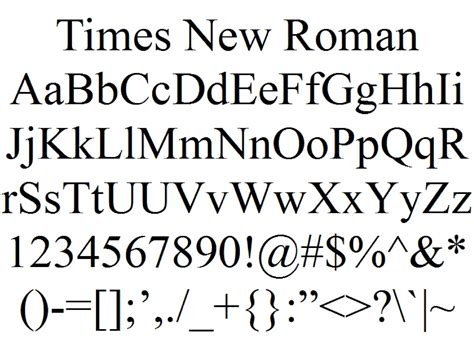
Times New Roman Size 12: Font Example & Usage Guide
Let’s dive into the world of Times New Roman size 12 , a font that’s basically the unsung hero of documents everywhere. We’re talking about that classic, super-familiar typeface you’ve probably seen in countless essays, reports, and even legal documents. So, what’s the big deal with Times New Roman, especially when it’s set at 12 points? Well, it’s all about readability and standardization , guys. This font has been a go-to choice for years because it’s clear, easy on the eyes, and universally recognized. Whether you’re a student, a professional, or just someone who likes to write, understanding how to use Times New Roman size 12 effectively is a valuable skill. In this guide, we’ll explore why it’s so popular, where you’ll typically find it, and how to make the most of it in your own writing. Think of this as your friendly guide to mastering a font that’s way more important than you might think!
Why Times New Roman Size 12 is a Standard
So, why is Times New Roman size 12 the standard for so many documents? It boils down to a few key reasons, starting with readability . This font was designed to be easy to read, with its clear and distinct letterforms. When you’re staring at a long document, the last thing you want is a font that strains your eyes. Times New Roman is like that reliable friend who’s always there to make things a little easier. Its balanced design ensures that each letter is easily distinguishable , reducing the risk of misreading and making the overall reading experience smoother.
Then there’s the issue of professionalism . Using Times New Roman size 12 gives your document an instant air of seriousness and competence. It’s the visual equivalent of wearing a well-tailored suit to a job interview. This font says, “I’m here, I’m professional, and I mean business.” Industries like academia, law, and government often require this font because it presents a consistent and formal appearance. Imagine submitting a legal document in Comic Sans – that wouldn’t fly, right? Times New Roman size 12 is the safe, reliable choice that shows you understand the importance of presentation.
Standardization is another major factor. By using a widely accepted font and size, you ensure that your document will look the same on virtually any computer. This eliminates the risk of your carefully formatted masterpiece turning into a jumbled mess when someone else opens it. Think about sending a resume to a potential employer, you want to make sure they see exactly what you intended, no matter what operating system or software they use. Times New Roman size 12 provides that assurance, making it a practical choice for anyone who needs to share documents across different platforms.
Finally, let’s not forget about tradition . Times New Roman has been around for a while, and it has become deeply ingrained in many industries. Like a well-loved recipe passed down through generations, it’s a font that people trust and are comfortable with. Sticking with Times New Roman size 12 is often seen as a way to respect these established norms, showing that you understand and appreciate the conventions of your field. So, while there might be newer, fancier fonts out there, Times New Roman size 12 remains a classic for a reason.
Common Uses of Times New Roman Size 12
When it comes to common uses of Times New Roman size 12 , you’ll find it all over the place, especially in situations where clarity and professionalism are key. Let’s start with academic papers . If you’re a student, chances are you’ve spent countless hours typing away in Times New Roman size 12. Many professors and academic institutions require it for essays, research papers, and dissertations. Why? Because it’s easy to read and provides a consistent look across all submissions. Using a different font might make your work stand out, but not in a good way. Sticking with Times New Roman shows that you’re following the rules and taking your work seriously. Plus, it helps your professor focus on the content of your paper, rather than being distracted by a funky typeface.
Next up, we have legal documents . In the legal world, precision and clarity are paramount. Times New Roman size 12 is the go-to font for contracts, briefs, and court filings. Its readability ensures that every word is easily understood, which is crucial when dealing with complex legal jargon. Imagine trying to decipher a complicated contract written in a hard-to-read font – it would be a nightmare! Times New Roman size 12 helps to minimize confusion and ensures that all parties are on the same page. It’s also a sign of respect for the legal profession, showing that you understand the importance of adhering to established standards.
Business reports and memos also frequently use Times New Roman size 12. In the corporate world, clear and concise communication is essential for productivity and efficiency. Using Times New Roman size 12 for internal documents helps to maintain a consistent and professional image. Whether you’re writing a quarterly report, a project proposal, or a simple memo, this font ensures that your message is conveyed clearly and effectively. It’s a subtle way to show that you pay attention to detail and care about the quality of your work. Plus, it makes it easier for your colleagues to read and understand your documents, which can save time and reduce misunderstandings.
Beyond these specific examples, you’ll find Times New Roman size 12 in a wide range of other contexts . From newsletters and brochures to resumes and cover letters, it’s a versatile font that can be used for almost any type of document. Its widespread availability and universal recognition make it a safe and reliable choice for anyone who wants to create a professional-looking document. So, the next time you’re wondering which font to use, remember that Times New Roman size 12 is always a solid option. It might not be the most exciting or innovative font out there, but it’s a classic for a reason. It gets the job done, and it does it well.
How to Use Times New Roman Size 12 Effectively
Alright, guys, let’s talk about how to use Times New Roman size 12 effectively . It’s not just about selecting the font and calling it a day. There are some strategies to keep in mind to really make your documents shine. First off, pay attention to your line spacing . Single-spaced text can look cramped and difficult to read, while double-spacing can make your document seem unnecessarily long. A good rule of thumb is to use 1.15 or 1.5 line spacing for most documents. This provides enough white space to improve readability without wasting too much paper. Experiment with different settings to see what looks best for your particular document. Remember, the goal is to make your text as easy as possible to read.
Margins are another key element to consider. A wall of text with narrow margins can be intimidating and overwhelming. Standard one-inch margins on all sides are generally a safe bet. This provides a comfortable amount of white space around your text, making it more inviting and less daunting. If you’re working on a longer document, like a report or a thesis, you might want to consider slightly wider margins to give your readers’ eyes a break. Think of margins as a frame for your text, helping to draw the reader’s attention to the content and create a more visually appealing layout.
Headings and subheadings are essential for organizing your thoughts and guiding your readers through your document. Use a slightly larger font size for headings (like 14 or 16 points) to make them stand out from the body text. You can also use bolding or underlining to further emphasize them. Subheadings should be smaller than headings but still clearly distinguishable from the body text. The goal is to create a clear visual hierarchy that helps readers quickly grasp the structure of your document. Well-organized headings and subheadings not only make your document easier to read but also show that you’ve put thought and effort into its presentation.
Don’t forget about the importance of proofreading . Even the most beautifully formatted document can be undermined by typos and grammatical errors. Before you submit or share your document, take the time to carefully proofread it. Read it aloud to catch errors that you might miss when reading silently. It’s also a good idea to have someone else proofread your work. A fresh pair of eyes can often spot mistakes that you’ve overlooked. Remember, attention to detail is crucial for maintaining a professional image. A polished, error-free document shows that you care about the quality of your work and that you’re committed to excellence.
Consistency is key when using Times New Roman size 12. Stick to the same font and size throughout your document, unless you have a specific reason to change it. Inconsistent formatting can be distracting and make your document look sloppy. If you’re using different font sizes for headings and subheadings, make sure they are consistently applied throughout. The same goes for line spacing, margins, and other formatting elements. Consistency creates a sense of order and professionalism, enhancing the overall impact of your document.
Alternatives to Times New Roman Size 12
Okay, so Times New Roman size 12 is a classic, but sometimes you might want to branch out and explore other options. There are plenty of alternatives that offer similar readability and professionalism while bringing a slightly different vibe to your documents. Let’s check out a few contenders.
First up is Garamond . This font is known for its elegance and readability, making it a popular choice for books and long-form text. Garamond has a slightly more refined and sophisticated look than Times New Roman, which can make your documents feel a bit more polished. It’s a great option if you want to convey a sense of style and sophistication without sacrificing clarity.
Next, we have Calibri . This font has become a standard in many offices. Calibri is a sans-serif font, which means it doesn’t have the little serifs (or feet) that Times New Roman does. This gives it a more modern and clean appearance. Calibri is particularly well-suited for on-screen reading, making it a good choice for emails, presentations, and other digital documents. While it might not be as formal as Times New Roman, it’s still a professional and versatile option.
Arial is another popular sans-serif font that’s often used as an alternative to Times New Roman. Arial is known for its simplicity and clarity, making it a good choice for a wide range of documents. It’s a bit more informal than Times New Roman, but it’s still a solid option for business reports, memos, and other professional communications. Arial is also widely available, so you can be confident that your documents will look the same on any computer.
If you’re looking for a font that’s specifically designed for on-screen reading, Verdana is a great choice. Verdana was created with readability in mind, and its clear and distinct letterforms make it easy to read on computer screens. It’s a bit wider than Times New Roman, which can make it easier on the eyes when reading long passages of text. Verdana is a good option for websites, blog posts, and other online content.
Finally, let’s talk about Lato . This sans-serif font is known for its clean and modern design. Lato is a versatile font that can be used for a wide range of purposes, from business cards and brochures to websites and presentations. It has a friendly and approachable feel, making it a good choice for companies that want to convey a sense of warmth and personality. Lato is also highly legible, making it a good option for documents that need to be easy to read.
Conclusion
So, there you have it! Times New Roman size 12 is a classic font that has stood the test of time for good reason. It’s readable, professional, and universally recognized, making it a safe and reliable choice for a wide range of documents. Whether you’re writing an academic paper, a legal brief, or a business report, Times New Roman size 12 is a font you can always count on. While there are certainly other fonts out there that you can use, Times New Roman remains a standard for its clarity and consistency.
Remember, effective use of Times New Roman size 12 involves more than just selecting the font. Pay attention to line spacing, margins, headings, and proofreading to create a polished and professional-looking document. And don’t be afraid to experiment with alternatives if you want to add a bit of variety to your writing. But whatever you do, always prioritize readability and clarity. After all, the most important thing is that your message is conveyed clearly and effectively.
So go forth and create awesome documents! With a little bit of knowledge and attention to detail, you can make Times New Roman size 12 work for you. Whether you’re a student, a professional, or just someone who loves to write, mastering this classic font is a valuable skill that will serve you well throughout your life. Happy writing , guys!